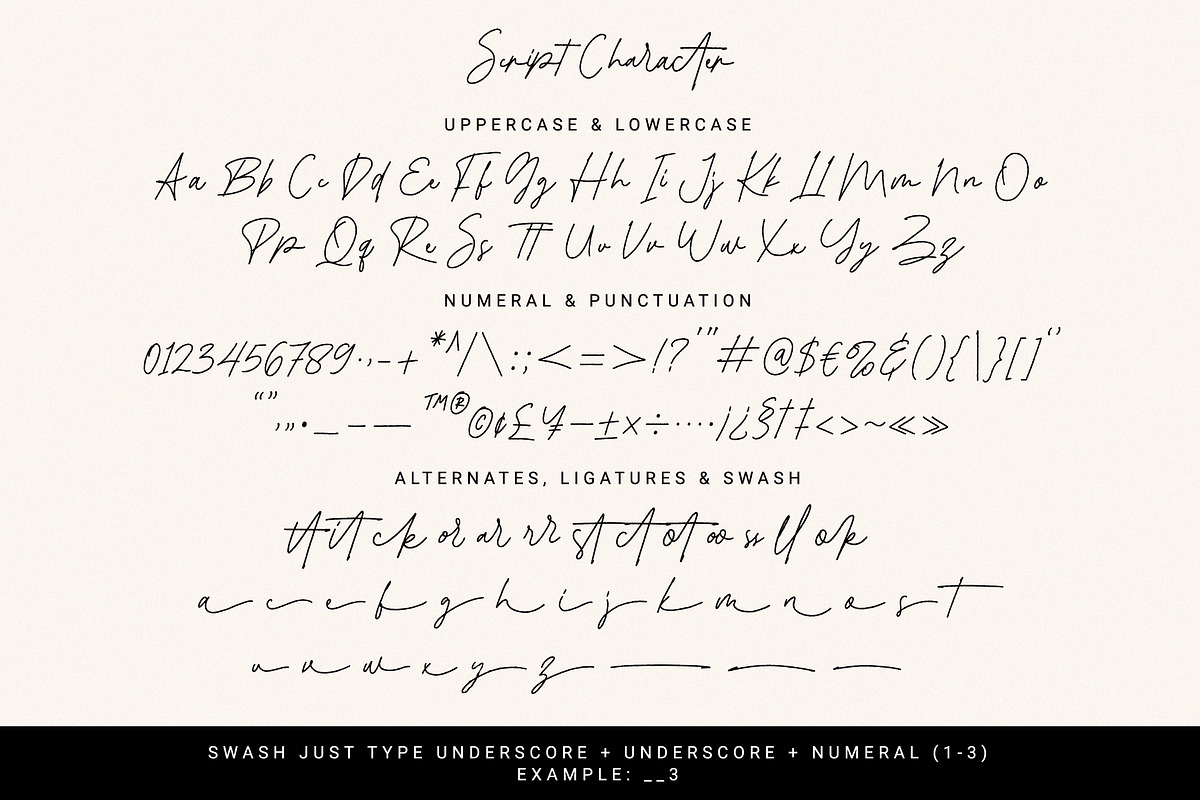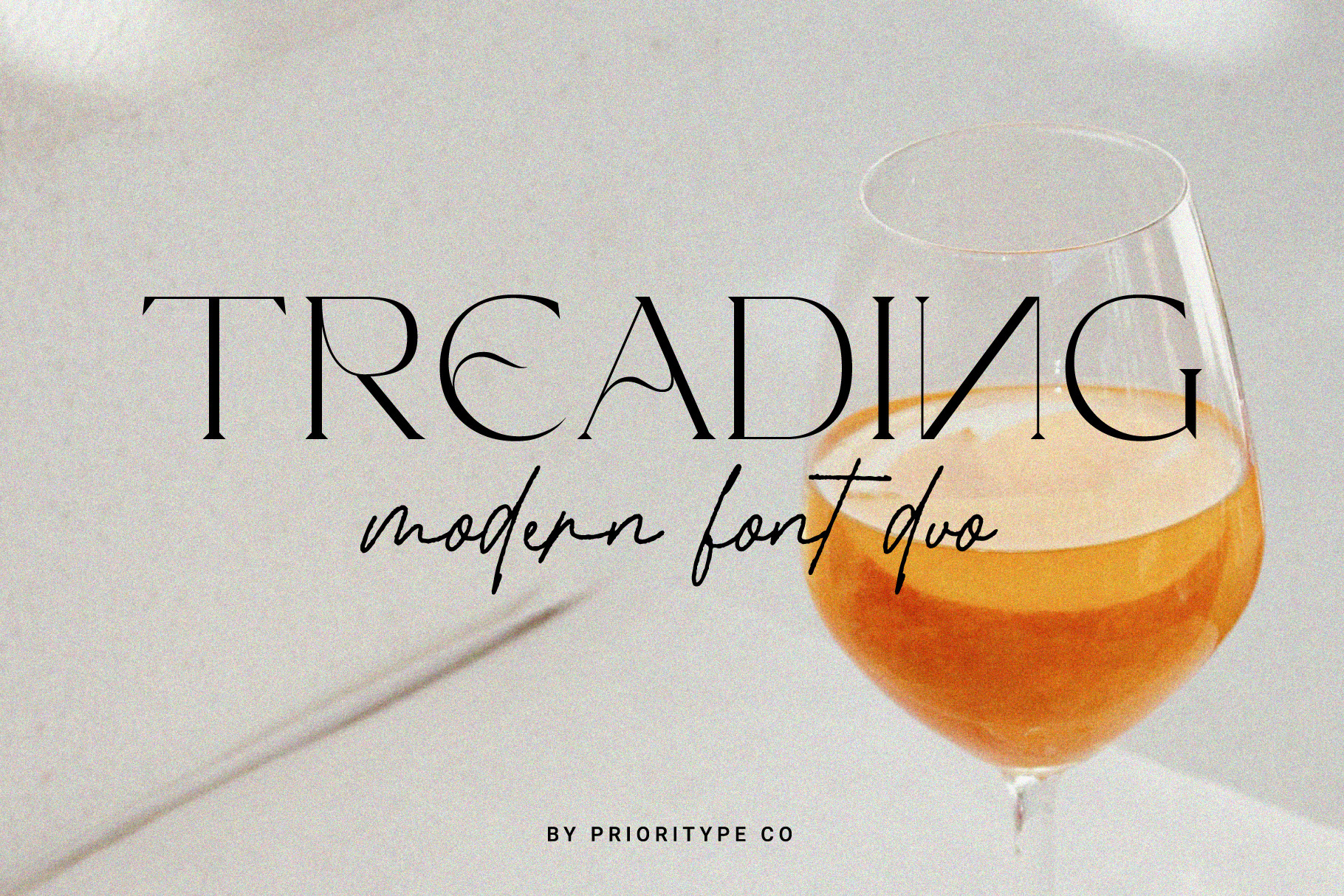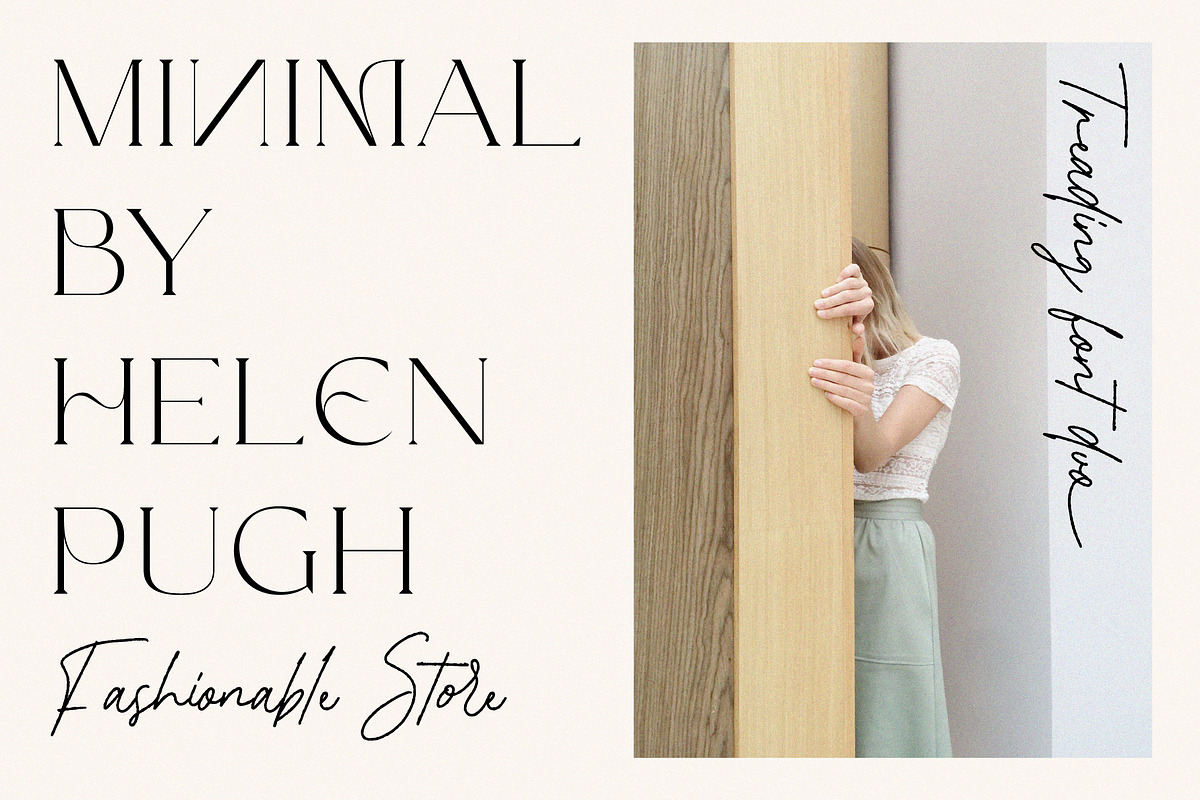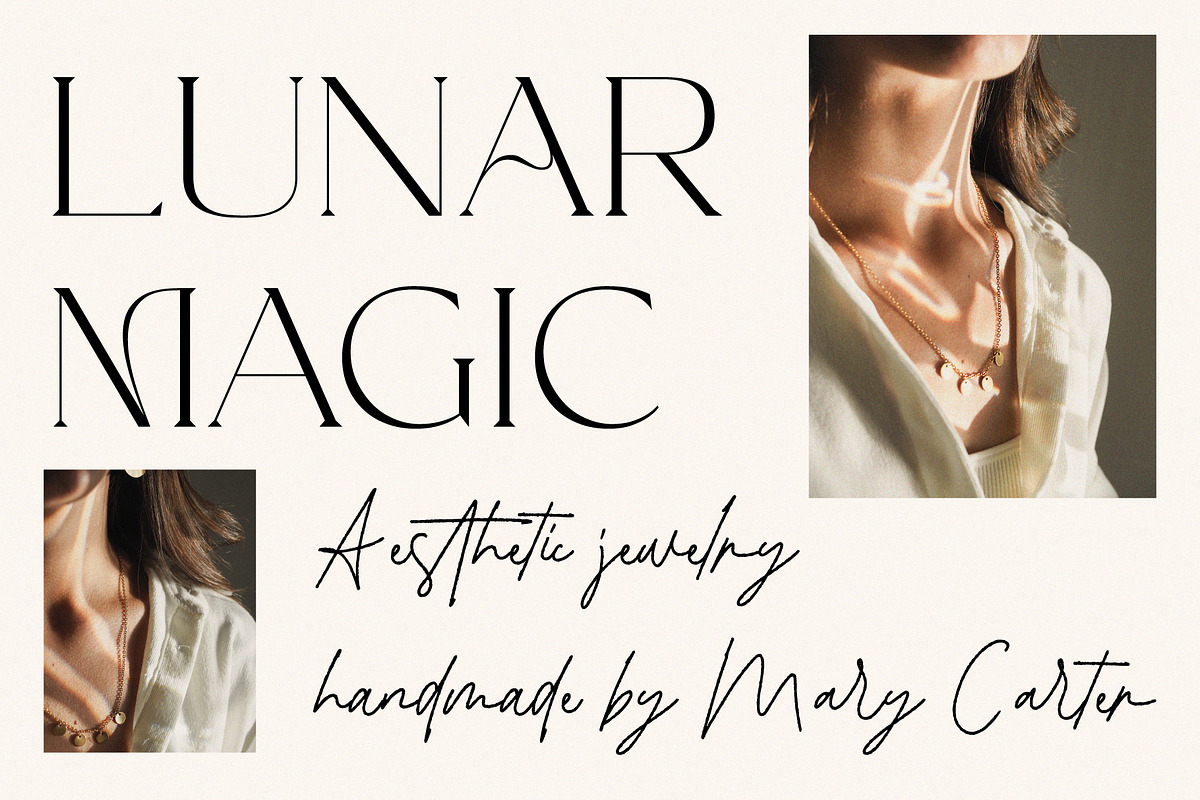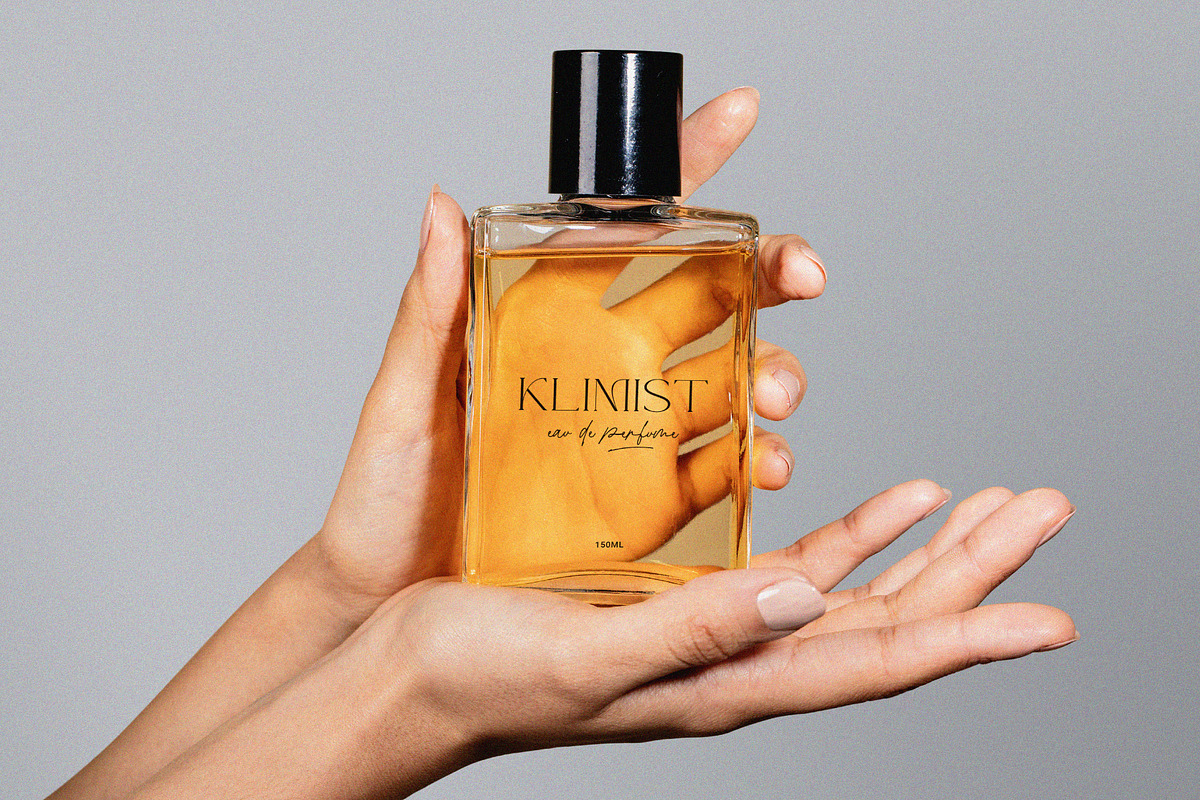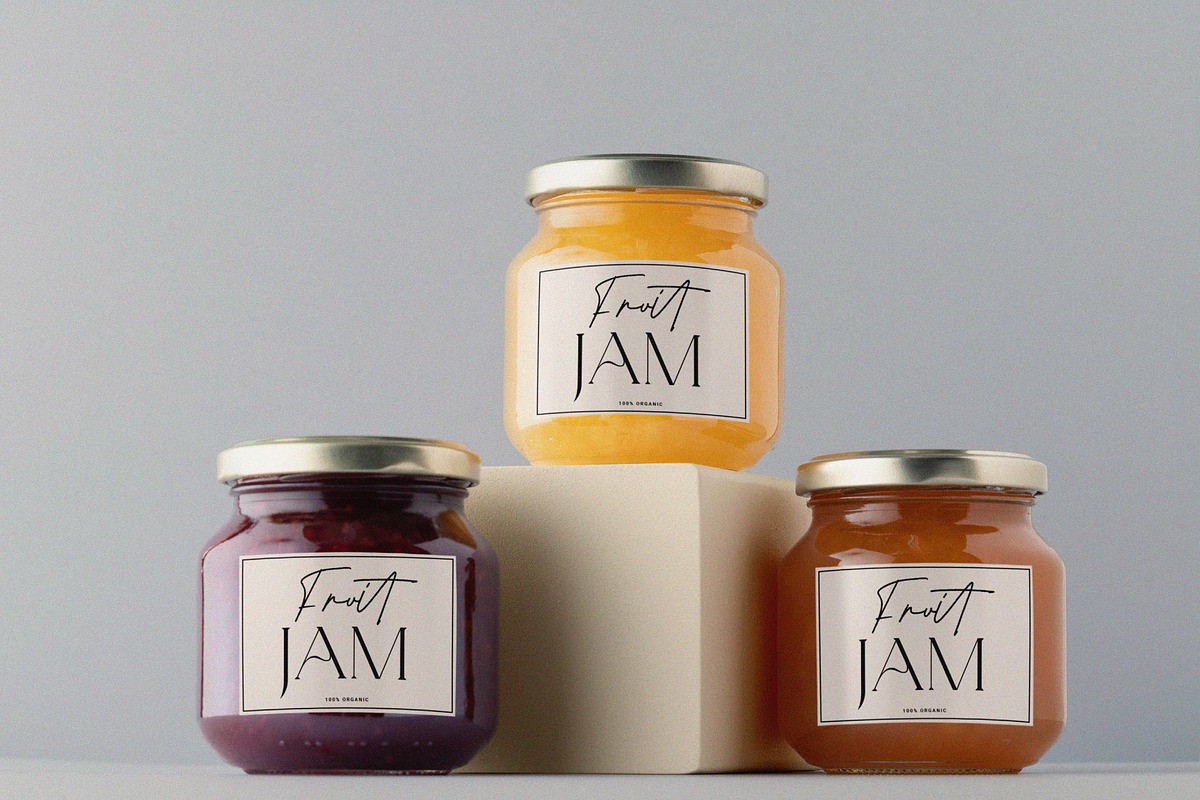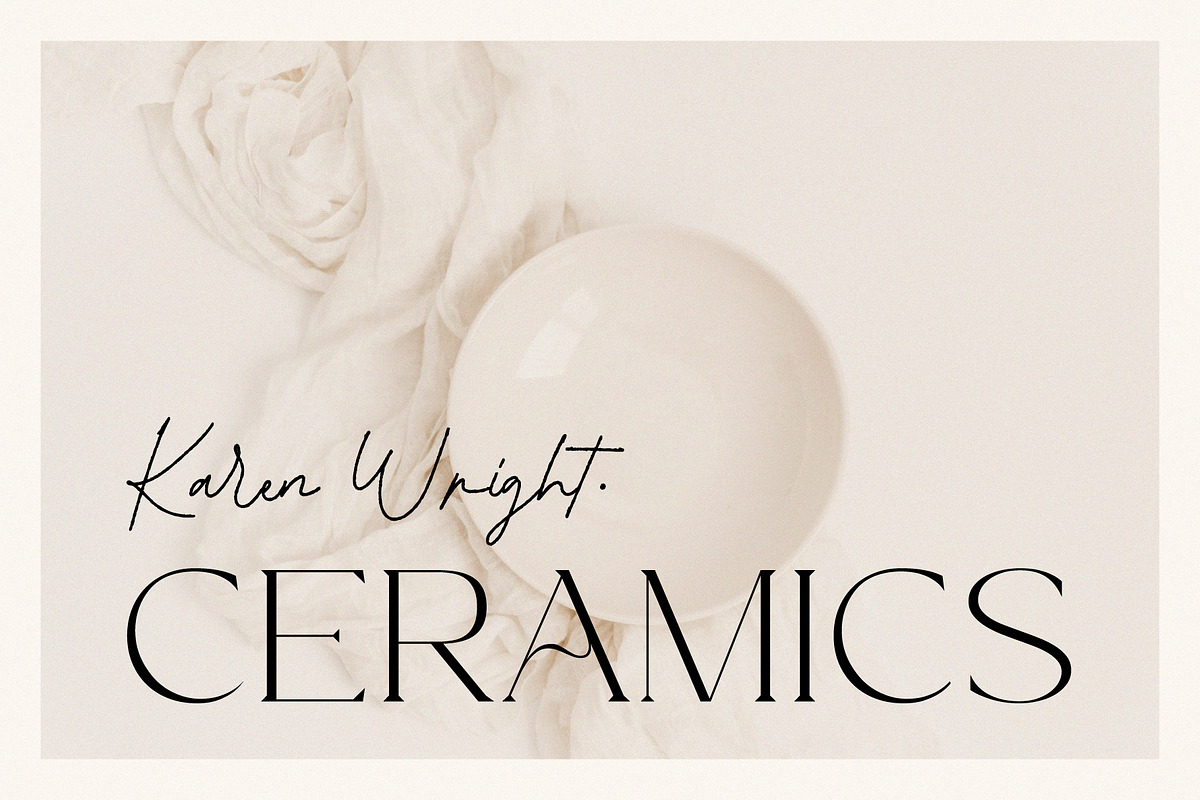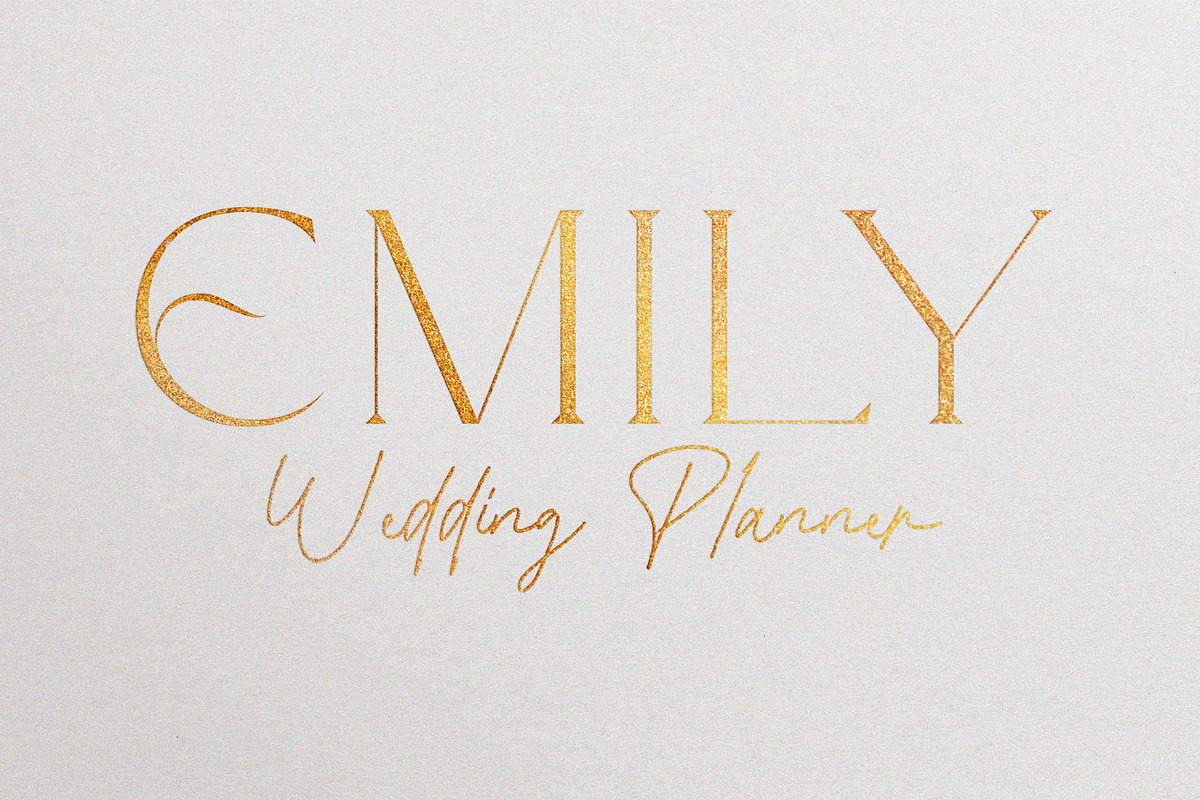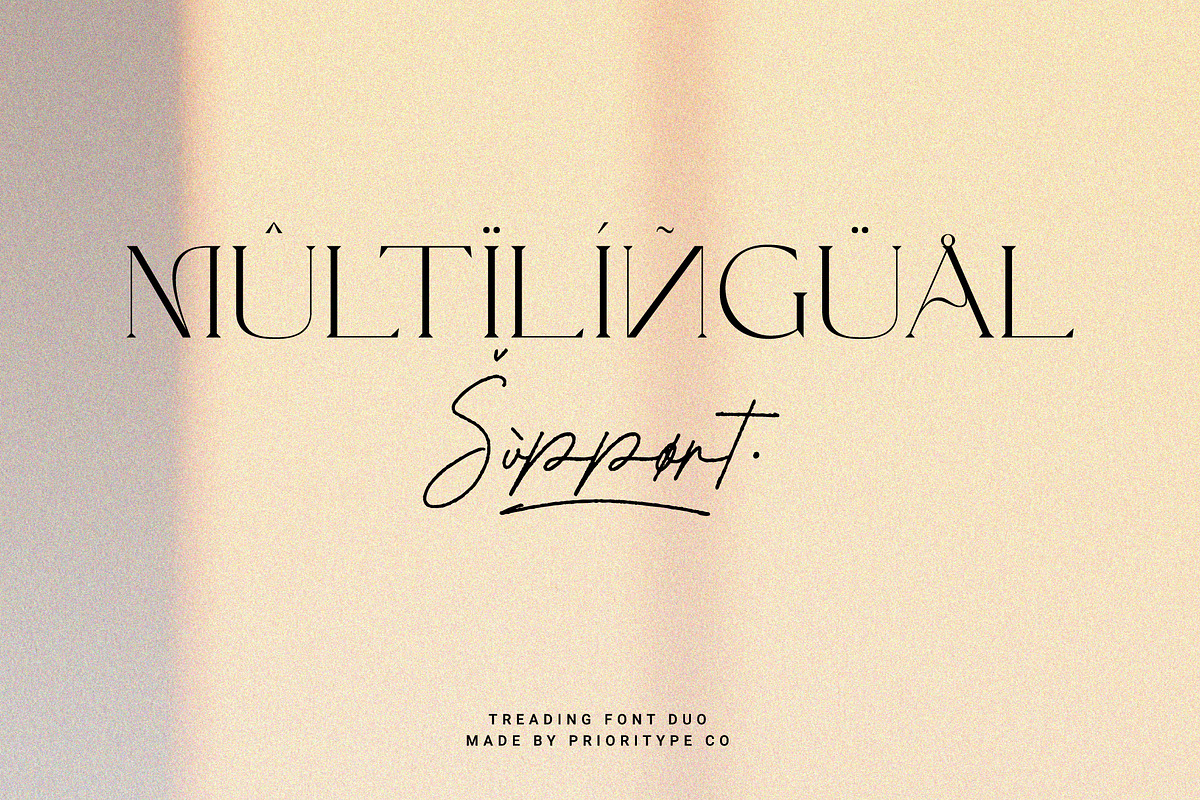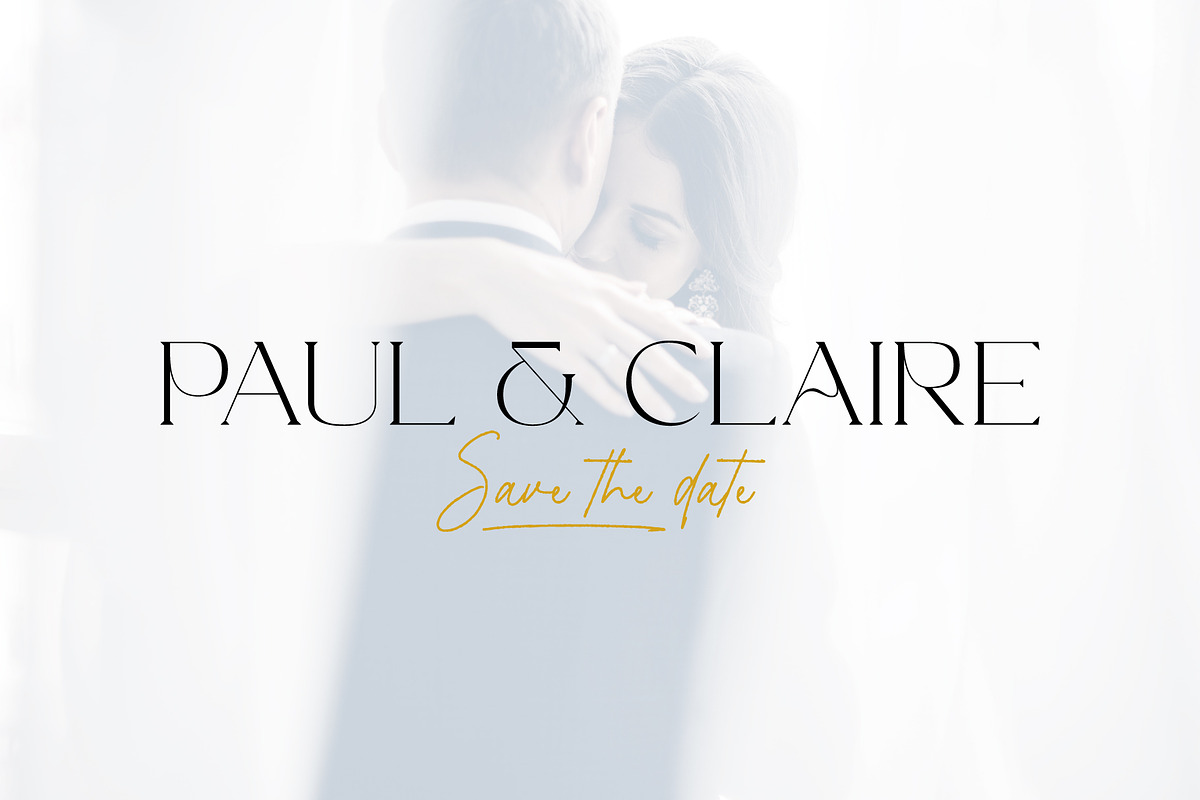
Treading - Modern Font Duo
Presents new paired fonts. A minimal and clean feel paired with a handwritten script font makes your designs even more special. This script font also features ligatures, alternatives, and swash or underscore characters that make it more realistic. Great for logo design, branding, quotes and more.
- Features:
- Serif: Uppercase, Lowercase, Numeral, Punctuation & Multilingual.
- Script: Uppercase, Lowercase, Numeral, Punctuation, Multilingual, Ligatures, Alternates & Swash.